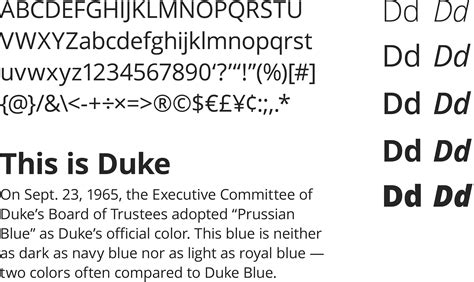
Hey guys! Ever stumbled upon a cool design and wondered what font it was? Well, today we’re diving deep into the Duke font , a typography choice that’s as iconic as it is versatile. If you’re looking to add a touch of classic elegance or a bold, modern flair to your projects, understanding how to download the Duke font is your first step. This guide will walk you through everything you need to know, from where to find it to how to use it like a pro. We’ll cover the different variations, licensing, and some super handy tips to make sure you get the most out of this fantastic typeface. So, buckle up, because we’re about to make font hunting a breeze!
Understanding the Duke Font Family
Before we get into the nitty-gritty of how to download the Duke font , let’s chat about what makes it so special. The Duke font isn’t just a single typeface; it’s often part of a larger family, offering a range of weights and styles that can cater to almost any design need. Think of it like having a whole toolkit of lettering at your fingertips. You’ve got your standard regular weights for body text, bolder options for headlines, and sometimes even elegant italics or condensed versions for special emphasis. This versatility is key, guys. It means you can maintain a consistent brand voice across different elements of your design, from your website’s main content to your social media graphics, without sacrificing readability or aesthetic appeal. Whether you’re designing a professional brochure, a personal blog, or even just a catchy flyer, having a font family that offers depth and variety is a massive plus. The Duke font, in its various forms, often embodies a sense of sophistication and clarity, making it a reliable choice for designers who value both form and function. We’ll explore some of these variations in more detail as we go, helping you identify which ones might be perfect for your next big project. Remember, the right font can completely transform a design, and the Duke family offers a solid foundation for many creative endeavors.
Utilizing the Duke Font in Your Designs: Tips and Tricks
So, you’ve got the Duke font downloaded and installed. Awesome! Now, let’s talk about how to use it effectively to make your designs pop . Guys, a font is more than just letters; it’s a voice, a style, and a crucial element of your visual communication. When using the Duke font, consider its inherent characteristics. Is it modern and sleek? Is it classic and formal? Tailor its application to match the message you want to convey. For headlines, a bold weight of the Duke font can command attention, creating a strong focal point. Pair it with a lighter weight for body text to ensure readability. Mixing and matching different weights within the Duke family can create visual hierarchy and interest without overwhelming your audience. Don’t be afraid to experiment with size and spacing (kerning and tracking). Proper typographic spacing is key to a polished look. Sometimes, just adjusting the space between letters can make a huge difference. If the Duke font has an italic version, use it sparingly for emphasis – think quotes, foreign words, or specific terms you want to highlight. Remember, less is often more. Overusing a font or its variations can lead to a cluttered and unprofessional appearance. Consider the context of your design. A formal invitation might benefit from a more elegant, lighter weight, while a modern tech startup’s branding might call for a bolder, more assertive use. Also, think about color. How does the color you choose interact with the Duke font? Does it enhance its readability or detract from it? Test different color combinations to see what works best. Finally, always preview your design with the font applied before finalizing. Get a second opinion if possible. Sometimes stepping away and coming back with fresh eyes can reveal areas for improvement. Using the Duke font strategically will elevate your designs from good to great.
Exploring Variations and Licensing of the Duke Font
Let’s get a bit more granular about the Duke font and its ecosystem. As I mentioned earlier, ‘Duke’ often refers to a font family , and understanding its variations is key to unlocking its full potential. You might find the Duke font in weights ranging from Thin, Light, Regular, Medium, SemiBold, Bold, to Black. Each weight has a distinct personality and intended use. The lighter weights are excellent for captions or subheadings where you want a subtle presence, while the bolder weights are perfect for impactful headlines or logos. Beyond weights, you might also encounter different styles. Some versions might have ‘Italic’ or ‘Oblique’ counterparts, adding a dynamic feel. Others could include ‘Condensed’ or ‘Extended’ variations, which are fantastic for fitting text into specific spaces, like narrow columns or wide banners. Some sophisticated families even offer stylistic alternates or ligatures, which are special character combinations that can add unique flair to your typography. When you download the Duke font , pay close attention to the specific files you’re getting. Does it include all these variations, or just a basic set? This often depends on whether you’re downloading a free version or purchasing a professional package.
Now, let’s talk licensing, guys. This is super important. Font licensing dictates how you can legally use the font. For many free fonts, especially those found on platforms like Google Fonts, the license (often the Open Font License or OFL) is quite permissive. You can generally use them for personal and commercial projects without needing to pay royalties, but there might be restrictions on modifying or redistributing the font files themselves. If you download the Duke font from a commercial foundry, you’ll likely encounter different license tiers. A ‘Desktop License’ usually allows you to install and use the font on a certain number of computers for print and static digital graphics. A ‘Webfont License’ is needed if you plan to embed the font on a website. ‘App Licenses’ or ‘E-book Licenses’ cover usage in software or digital publications. Always read the End User License Agreement (EULA) carefully! Ignoring licensing terms can lead to legal issues, so it’s crucial to understand what you’re agreeing to when you download or purchase a font. Choosing the right license ensures you’re using the Duke font ethically and legally, giving you peace of mind as you create.
When to Choose the Duke Font for Your Project
Sometimes, problems arise from font conflicts – having multiple versions of the same font installed can sometimes confuse applications. If you suspect this, open your system’s font manager (Font Book on Mac, or the Fonts folder in Control Panel on Windows) and remove any duplicate or suspicious-looking versions of the Duke font, then reinstall a clean copy. Another point of confusion can be licensing. If you’re trying to use the font in a context that requires a specific license (like web use) and you only have a desktop license, it might not work as expected or could lead to licensing violations. Always double-check that your installed font version matches the license required for your project. Finally, if you downloaded the font as part of a large pack, ensure you extracted all the necessary files. Sometimes, essential components like character sets or specific style files might be missed during a partial extraction. By systematically checking these common culprits, you can usually resolve most issues and get back to using the Duke font smoothly in your designs. Don’t let a small glitch derail your creative flow, guys!